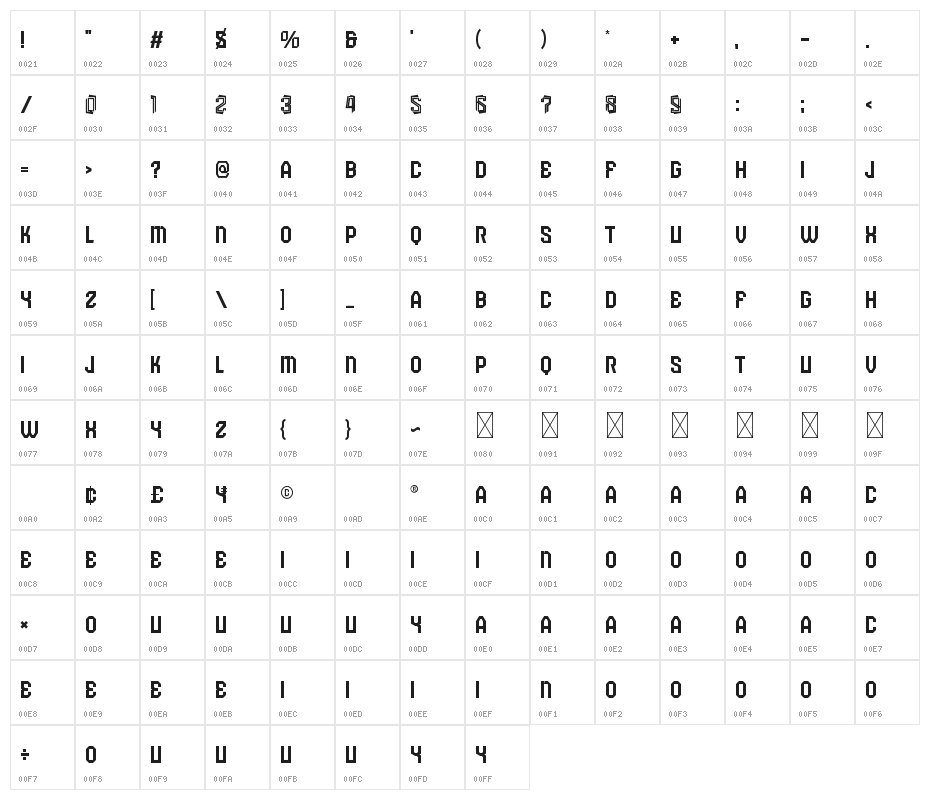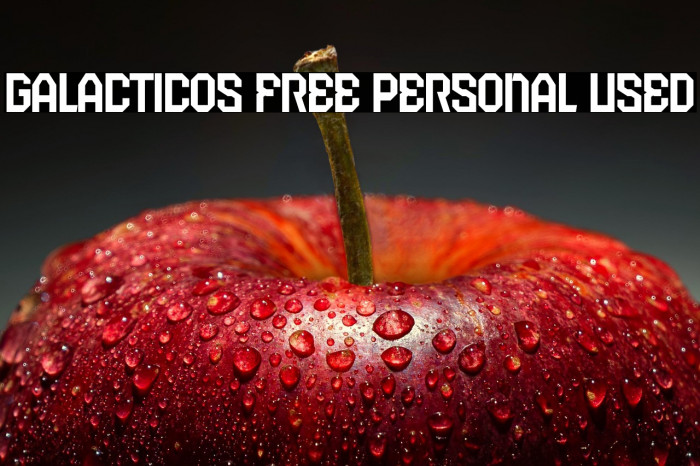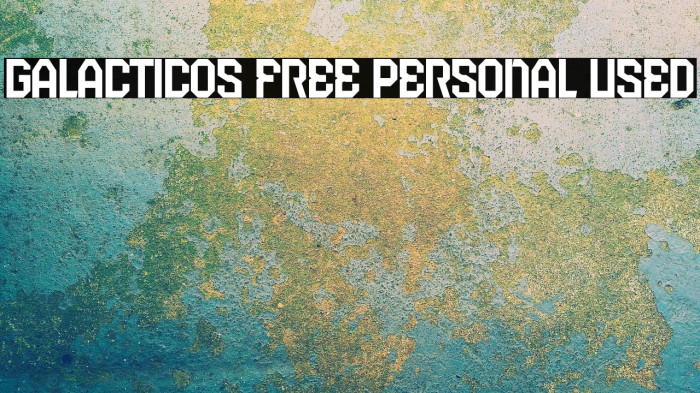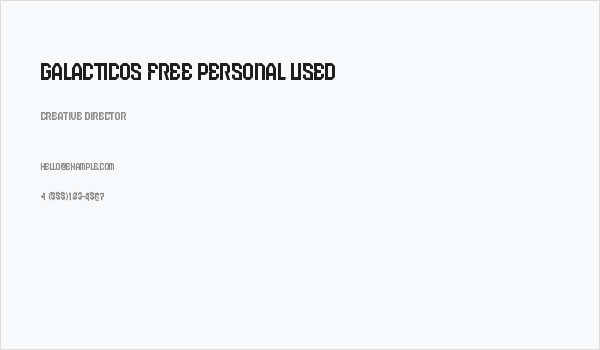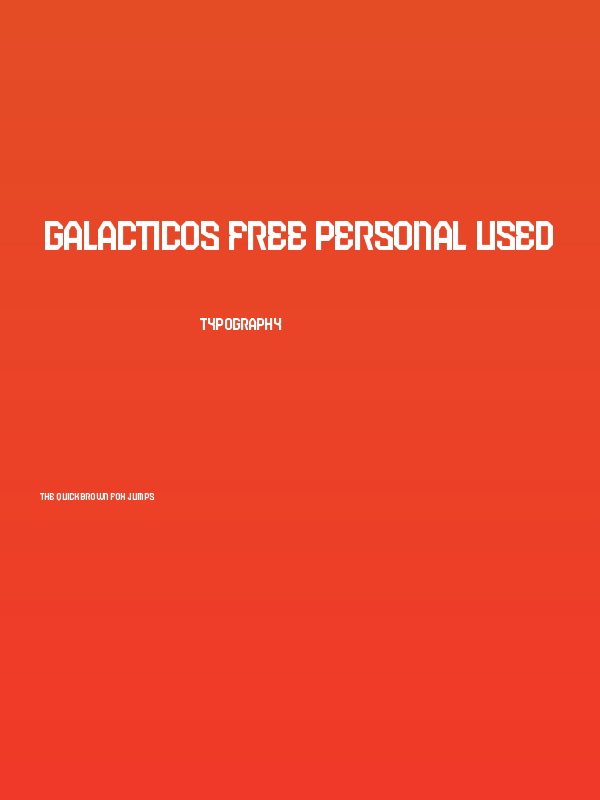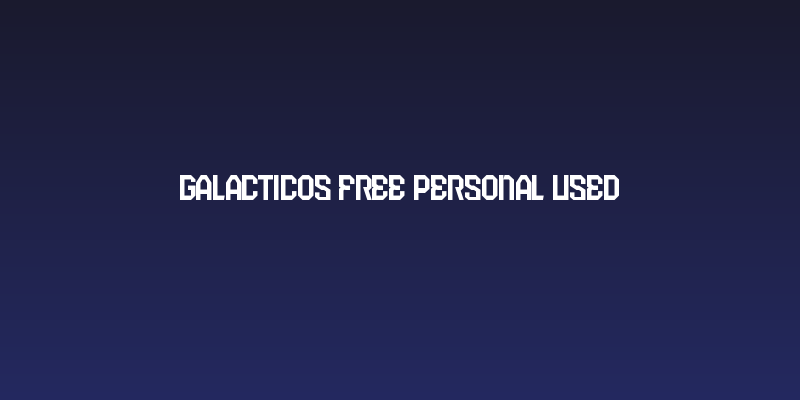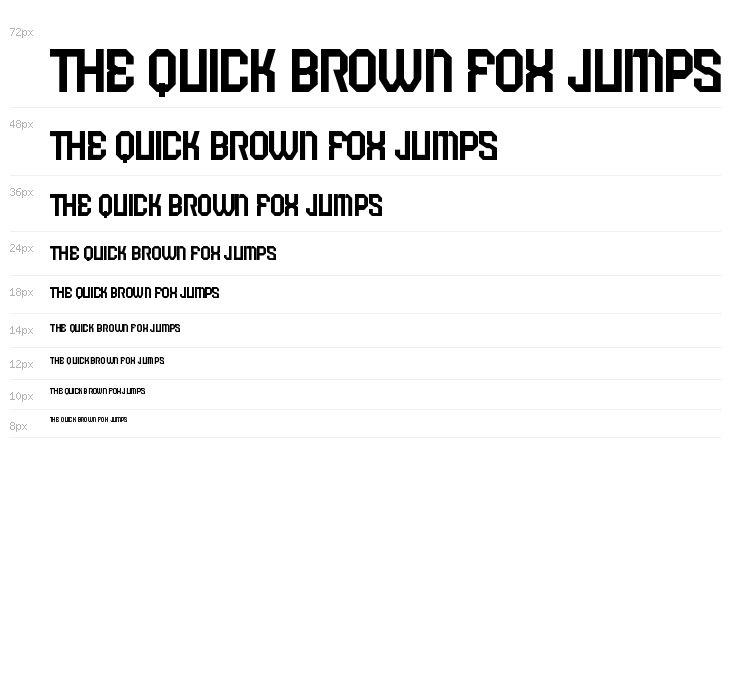
Galacticos Free Personal Used Font
Galacticos Free Personal Used Description
This font features a bold, geometric design with a futuristic and angular aesthetic. The characters are constructed with sharp edges and straight lines, creating a sense of modernity and innovation. The uppercase and lowercase letters maintain a consistent style, with a strong emphasis on symmetry and uniformity. Numbers and special characters follow the same design principles, ensuring a cohesive look across all elements. The font's unique style makes it stand out, with a distinct personality that is both striking and memorable.